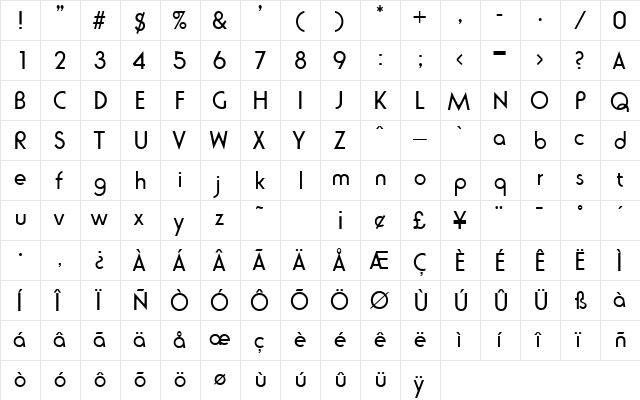
Blippo Light SF Regular
Design Context for Blippo Light SF Typeface
Blippo Light SF takes a measured approach to typography — its balanced proportions and neutral character make it a reliable workhorse for both digital and print work. Its slender proportions lend an understated elegance to any composition.
Pro Tip: Use Blippo Light SF in both headline and body roles to test its range before committing to a single application.